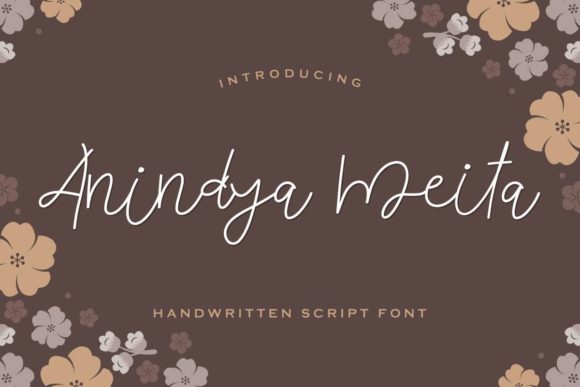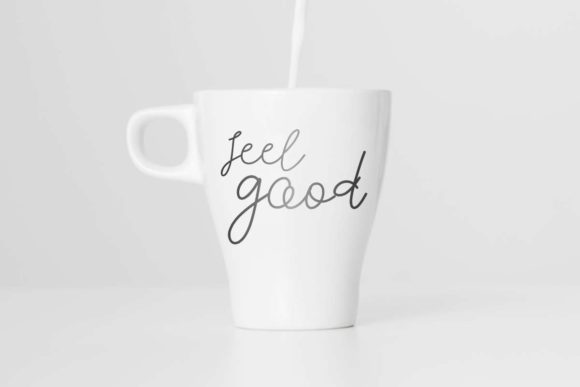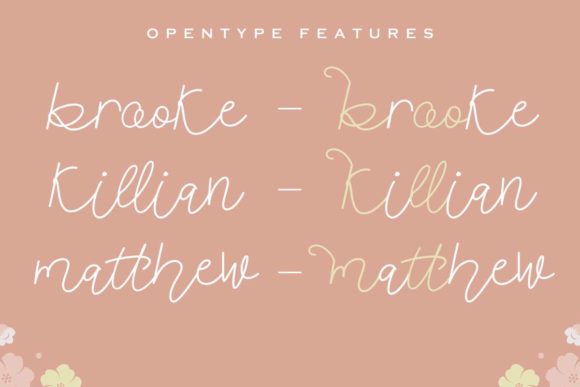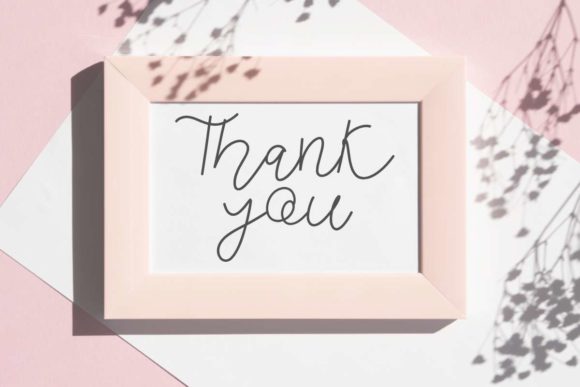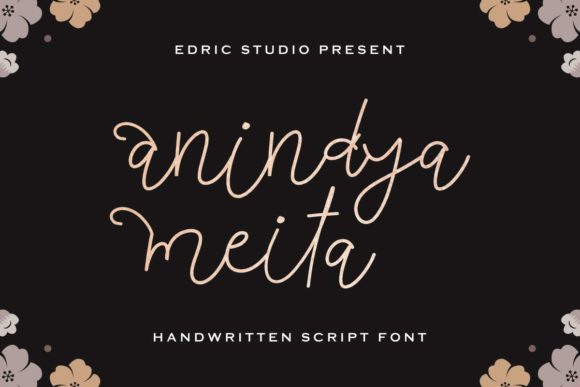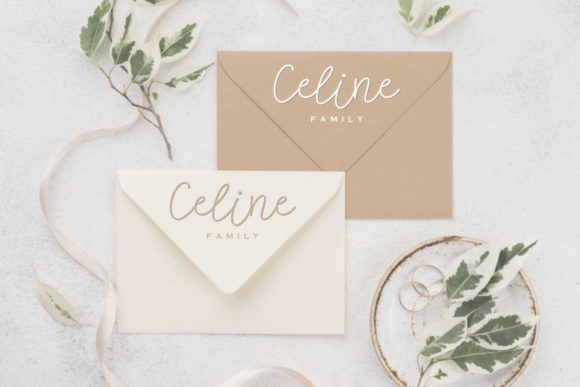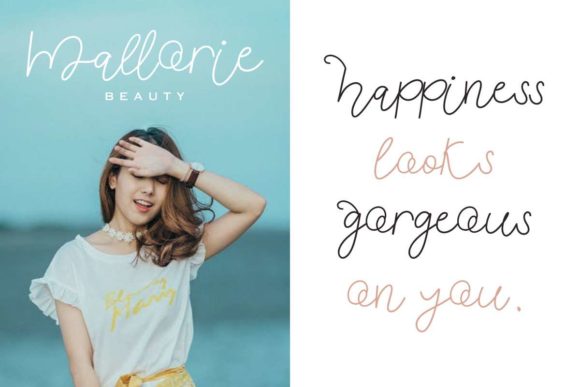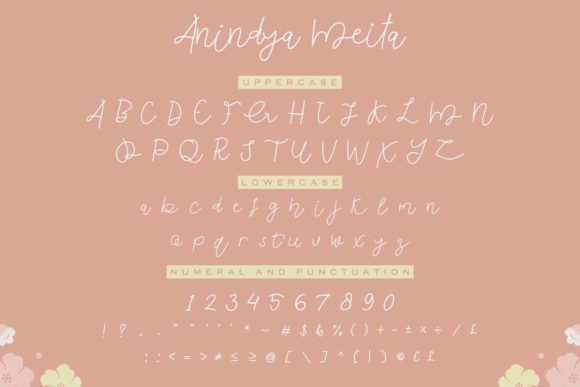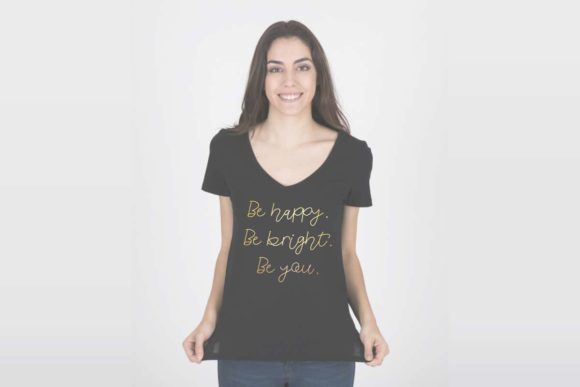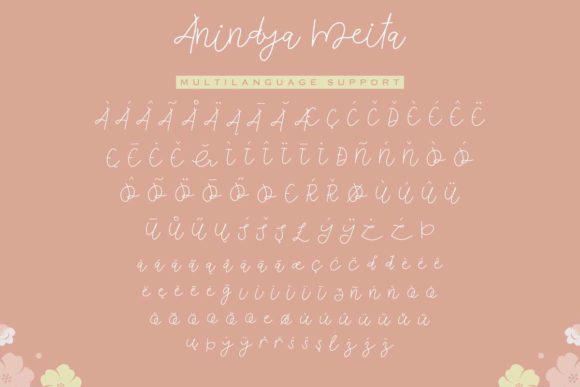
Anindya Meita Font
About Anindya Meita Font
Anindya Meita is a quirky and fund handwritten font. It’s perfect for branding, logo, stationery, business cards, greeting cards and much more!